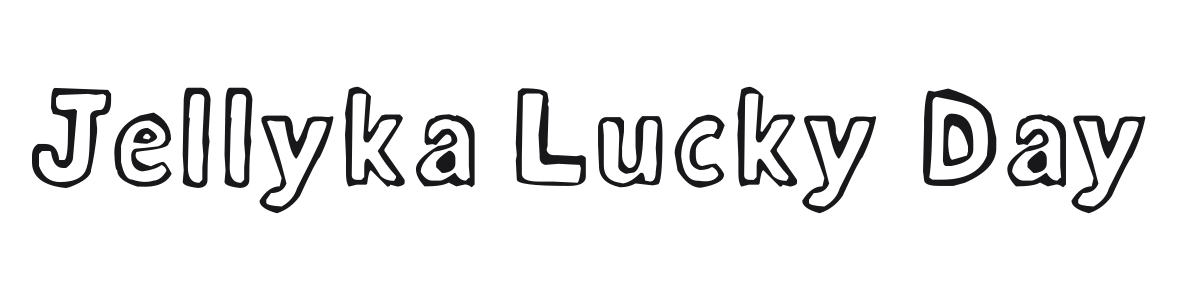
Jellyka Lucky Day
Jellyka Lucky Day is a hand-drawn outline typeface by Jellyka Nerevan with a loose, bubbly quality that feels like doodling in the margins of a notebook. The unfilled letterforms keep things light and airy, giving it a playful, slightly quirky personality that works well for headlines, greeting cards, and casual display use where you want something cheerful without much visual weight.